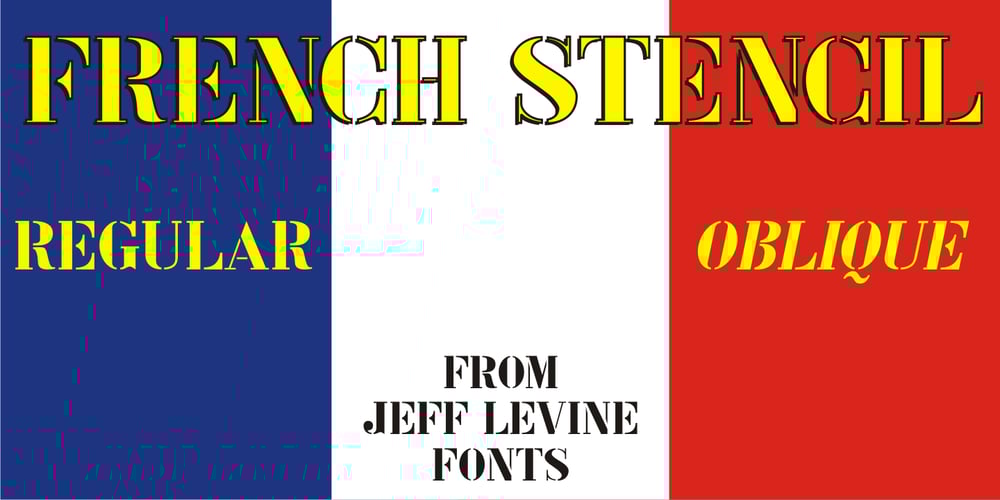
French Stencil JNL Font Family was designed by Jeff Levine and published by Jeff Levine. French Stencil JNL contains 2 styles and family package options. French Stencil JNL was inspired by images of a set of metal stencils from France that were offered for sale in an online auction.